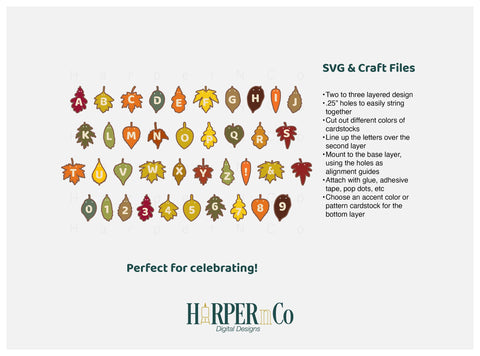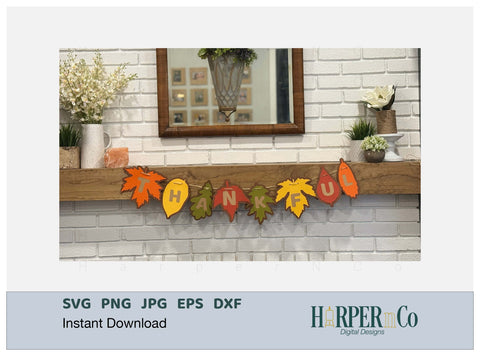
Autumn Leaf Alphabet Banner, Thanksgiving, Autumn, Harvest, Leaves Bundle
Use these to create words, each letter in its own unique leaf. Includes all letters A-Z, numbers 0-9, !, &, and a blank leaf.
Create banners that say: Thankful, Thanksgiving, Happy Fall, Autumn, Welcome, etc